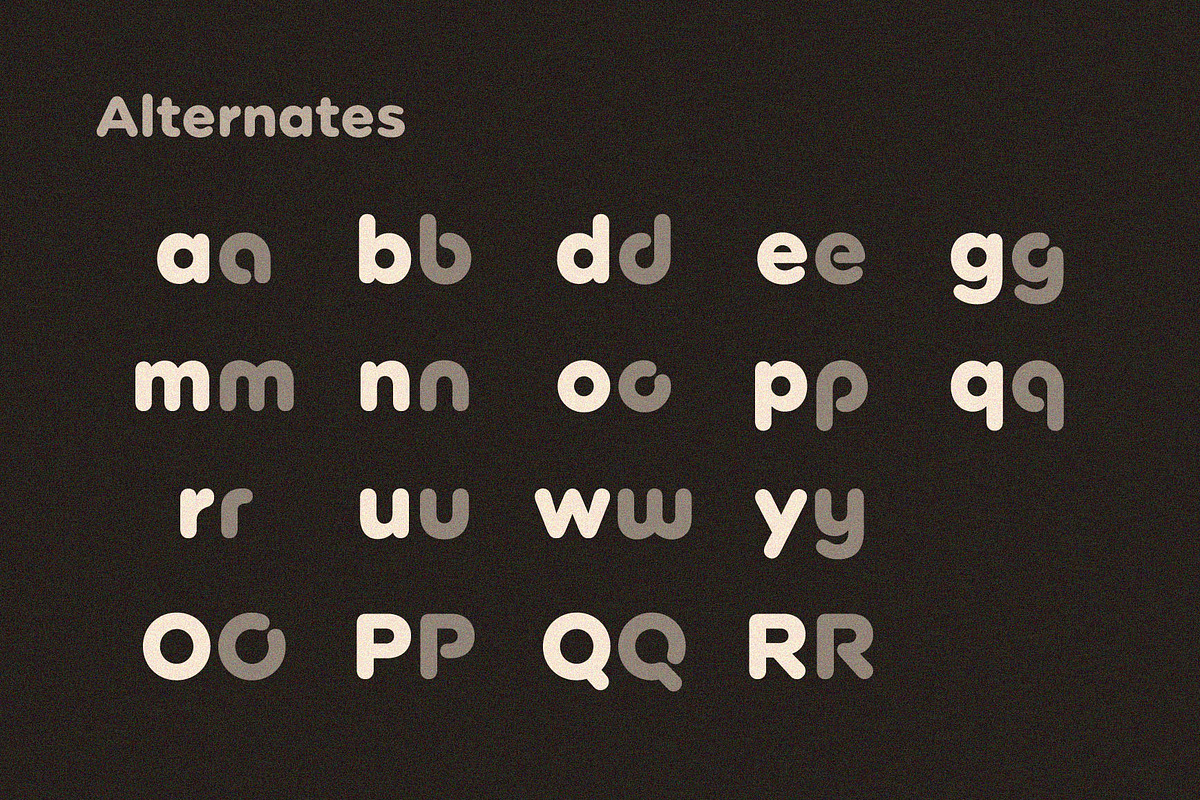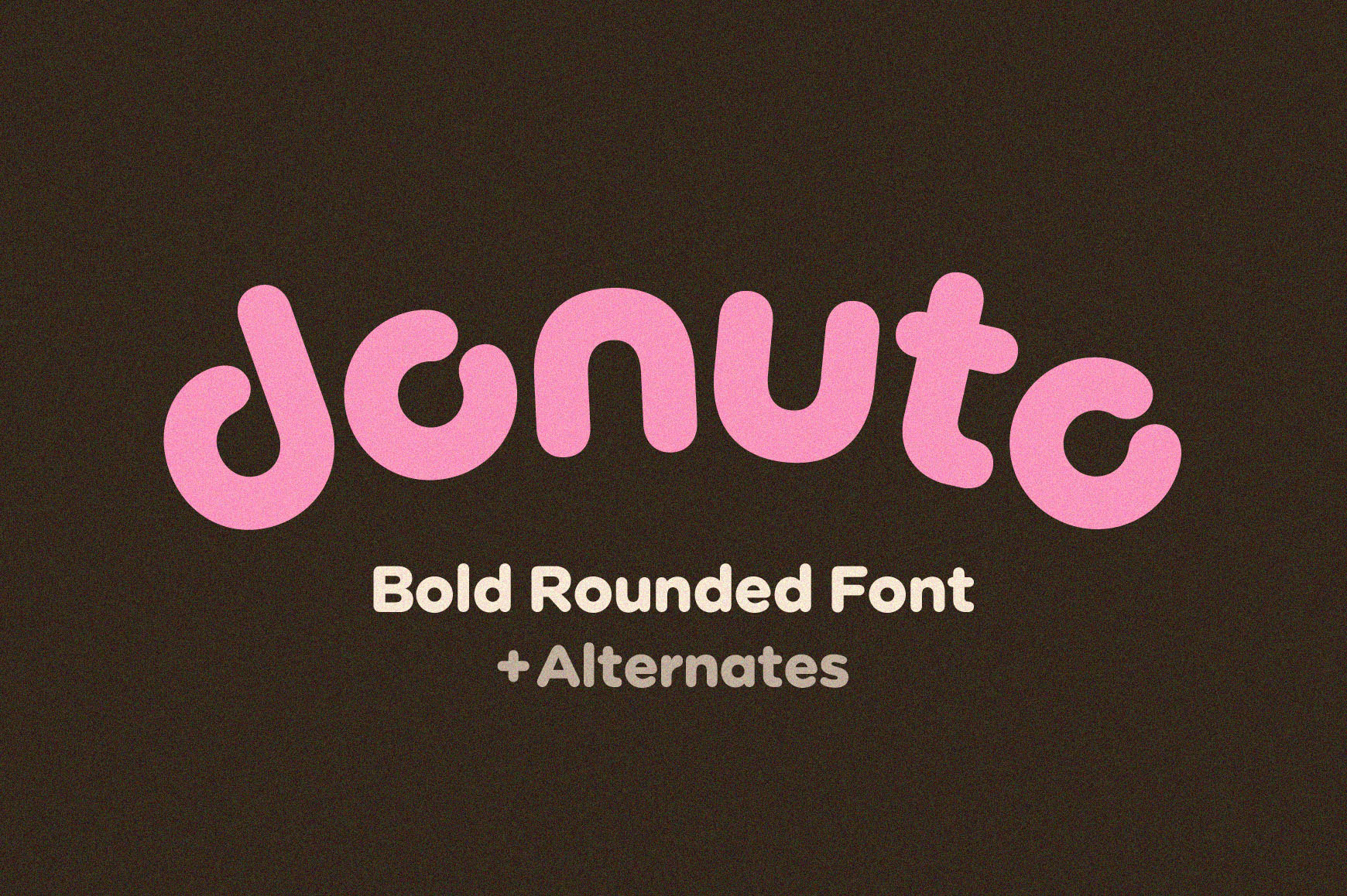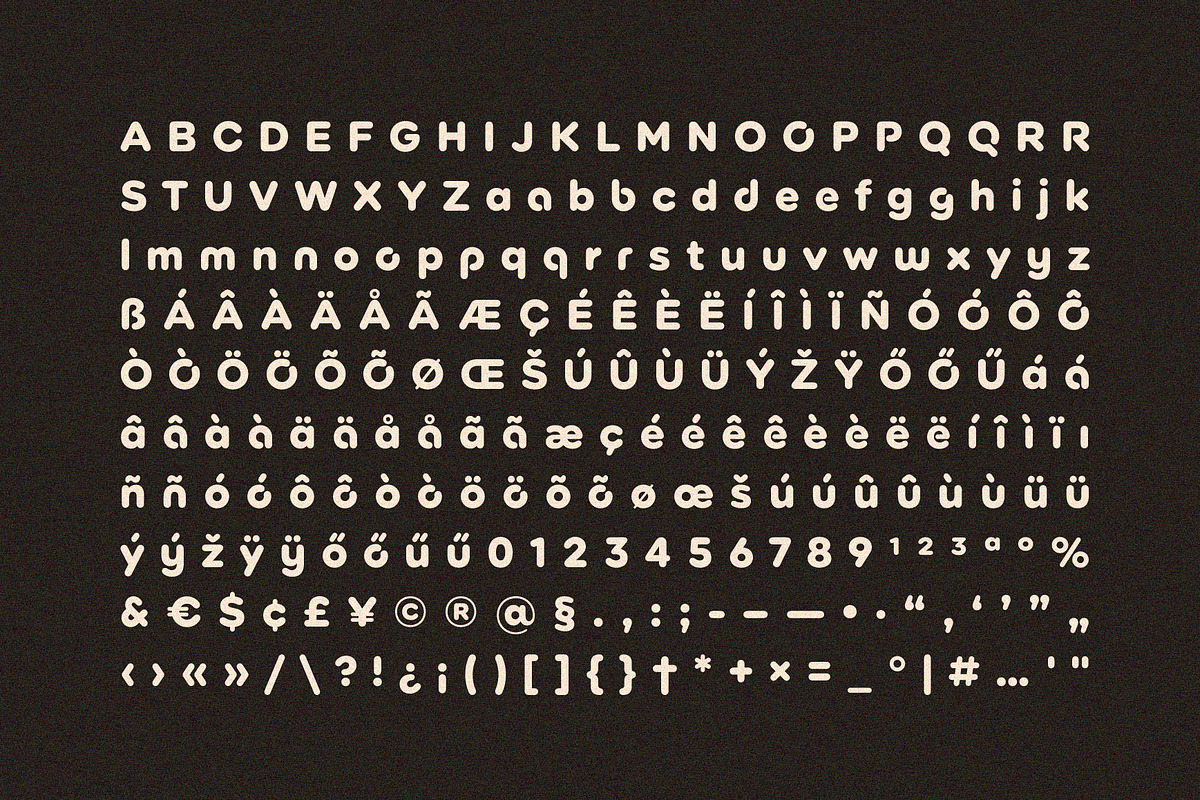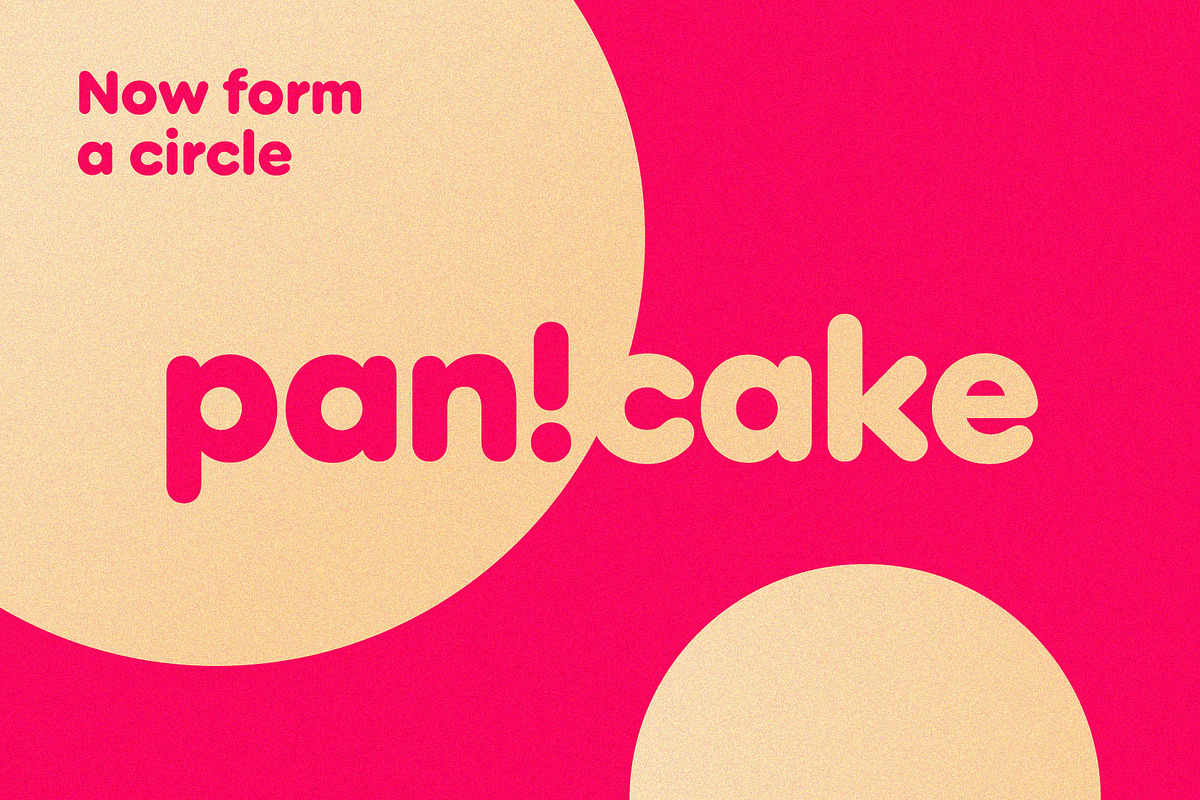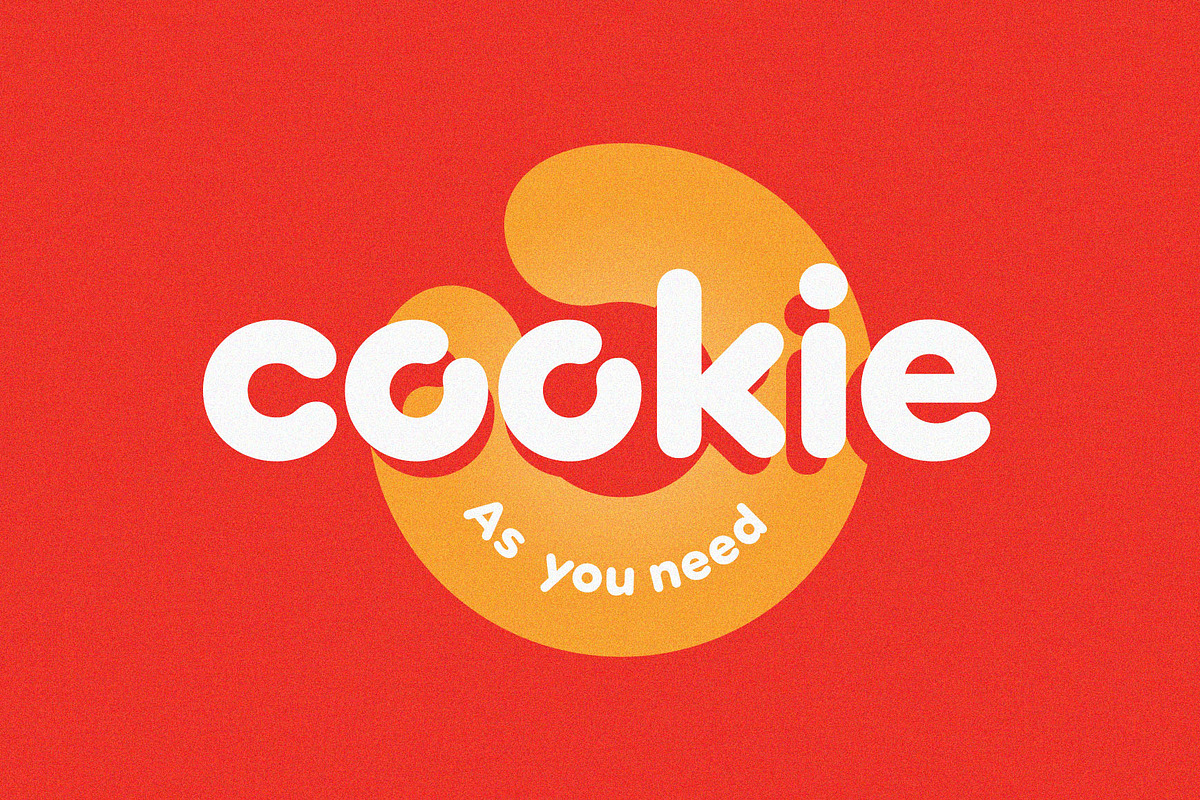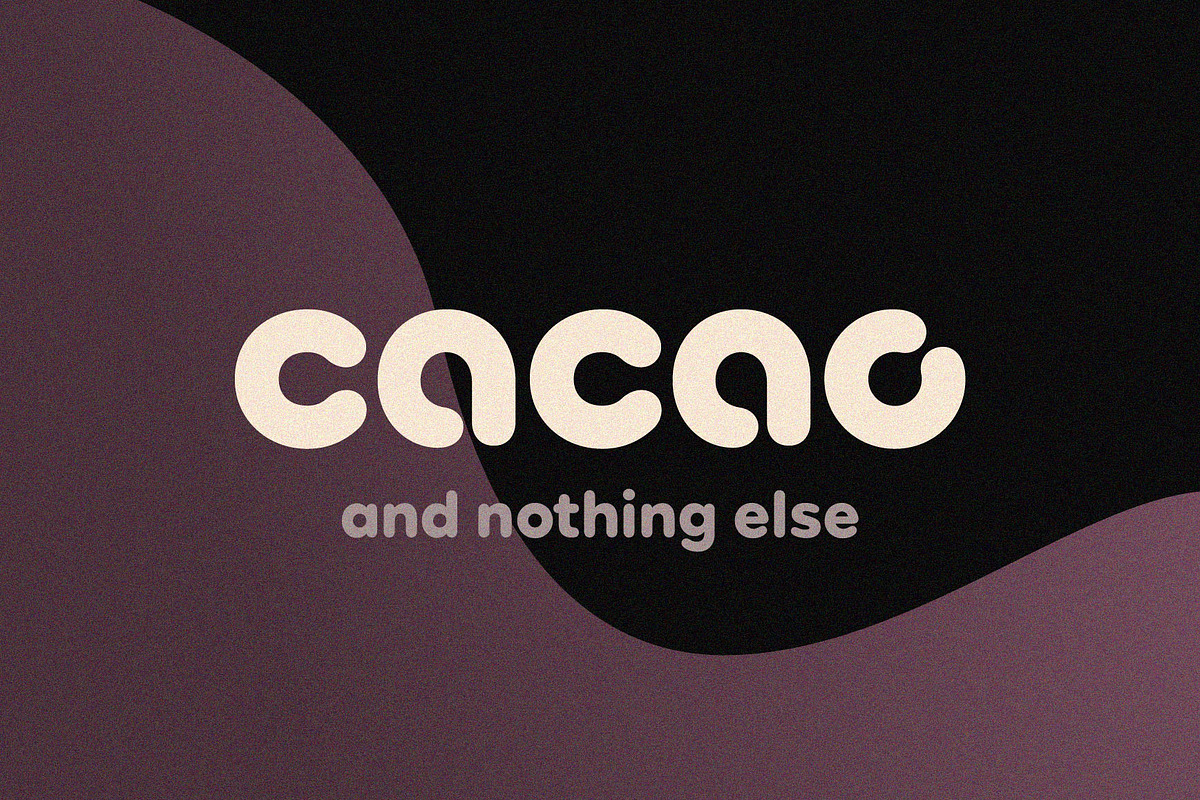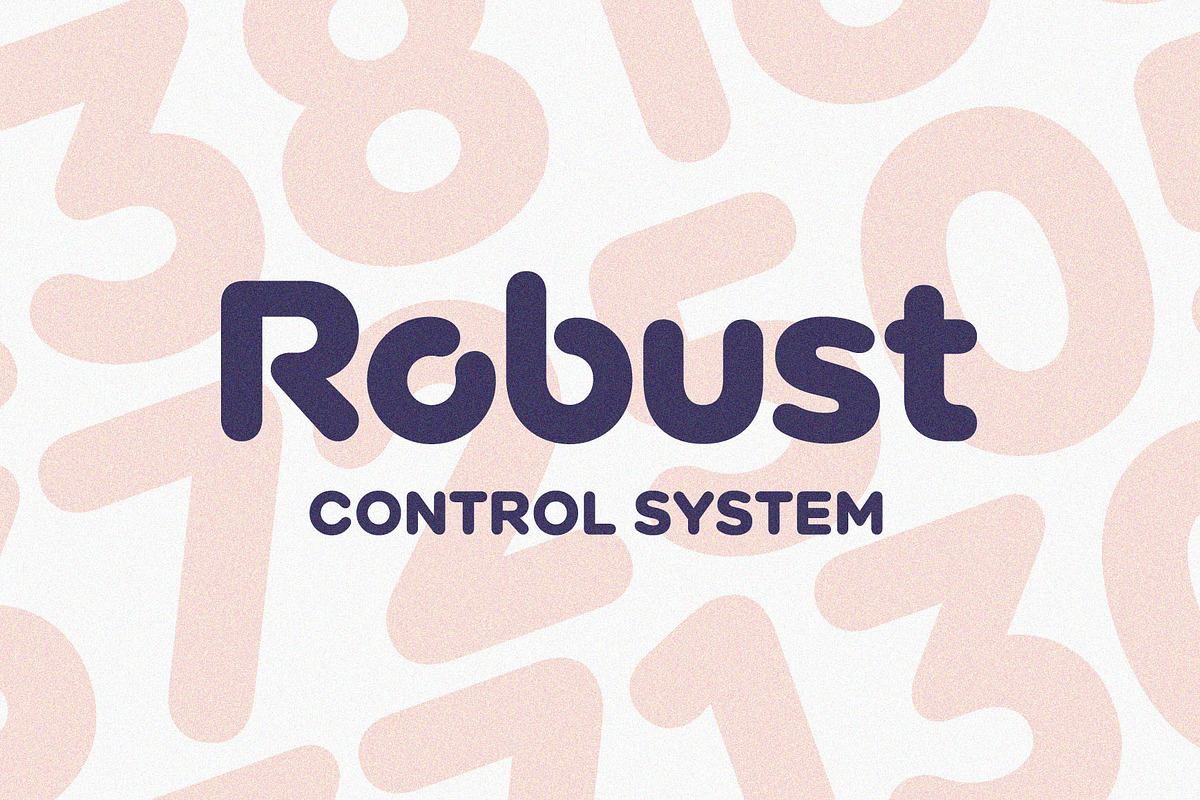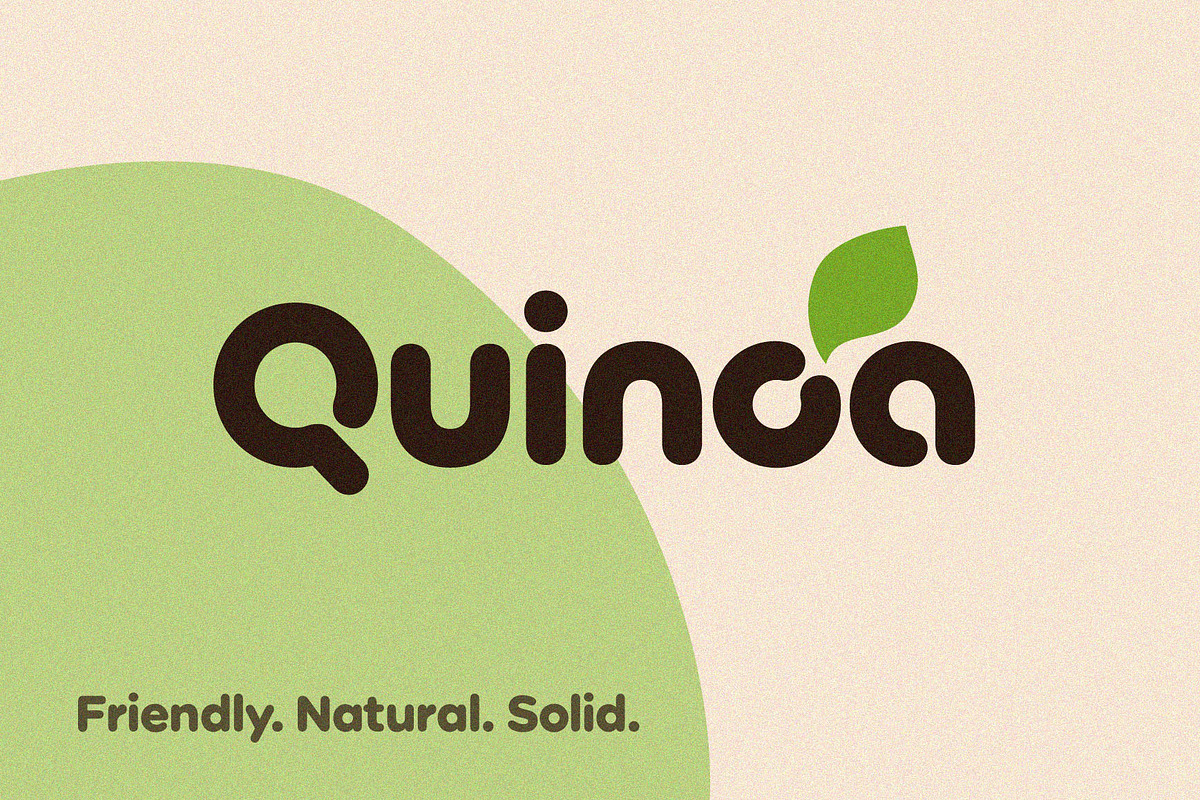
Donuto Font
Donuto is a bold rounded font. It's suitable for create logos and branding of food, children's and eco-products. The font contains a number of alternate characters, which allows you to create unique combinations.